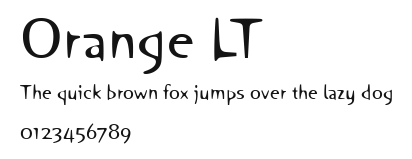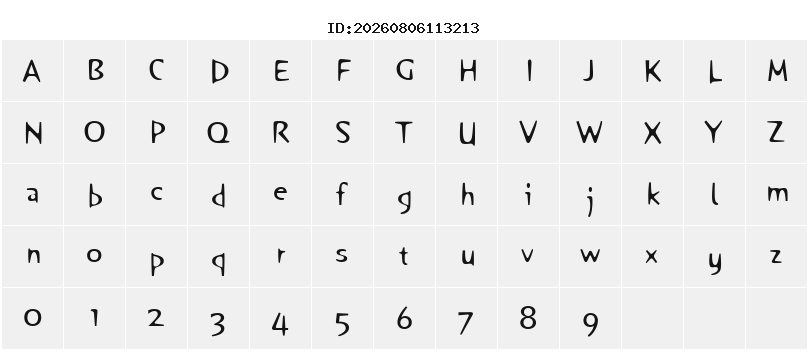
• Font Name: Orange LT
• Full Font Name: Orange LT
• Manufacturer: Linotype Library GmbH
About Orange LT.ttf
Orange LT.ttf is a modern, elegant sans-serif font designed for ultimate readability and visual harmony. Perfect for branding, headlines, web design, and print materials.